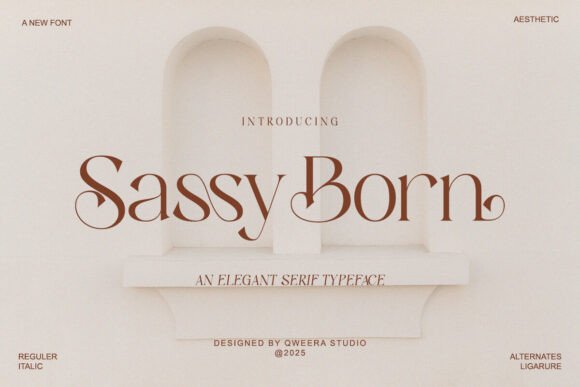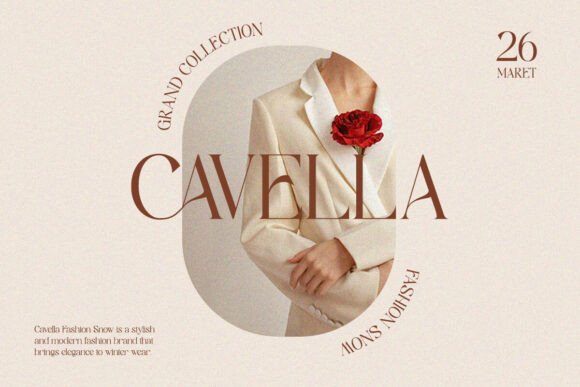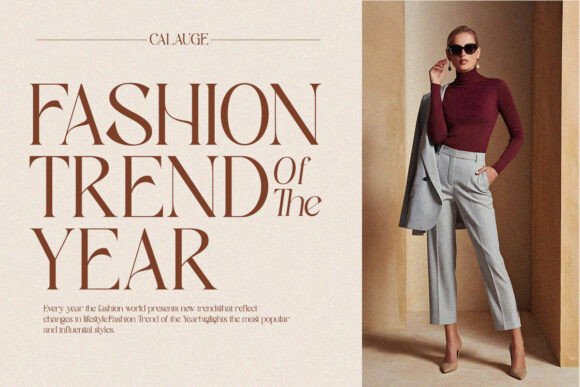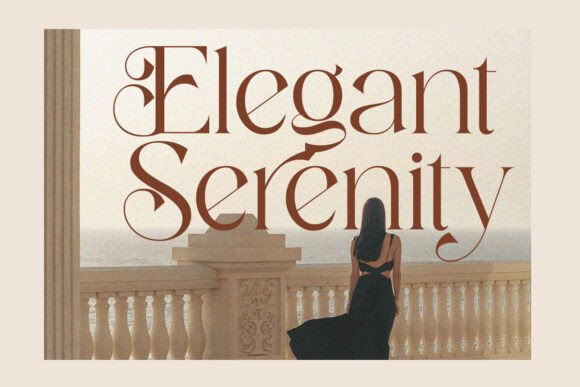
Sassy Born Font: Elegant Serif for Luxury Branding & Logo Design
About the Sassy Born Font
The Sassy Born Font is here to transform your projects with its distinctive character and style. Sassy Born – Modern Elegant Luxury Serif Font for Premium Branding
Sassy Born is a captivating serif typeface that redefines luxury with its bold elegance and contemporary flair. Featuring both regular and italic versions with exquisite alternates and ligatures, this font is expertly crafted for high-impact branding, sophisticated logos, premium packaging, and editorial designs that demand attention.
Where Bold Elegance Meets Modern Sophistication
With its confident serif structure and graceful italic counterpart, Sassy Born delivers unparalleled versatility for brands seeking both prestige and personality. The carefully designed alternates and ligatures empower you to create distinctive typographic compositions with perfect balance and style.
Ideal for:
– Luxury fashion branding
– High-end cosmetic packaging
– Premium restaurant identities
– Magazine headline typography
– Elegant event promotions